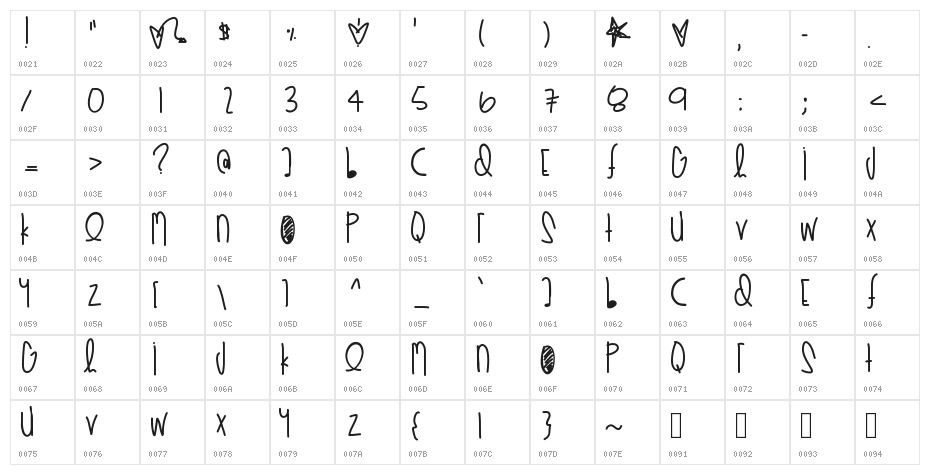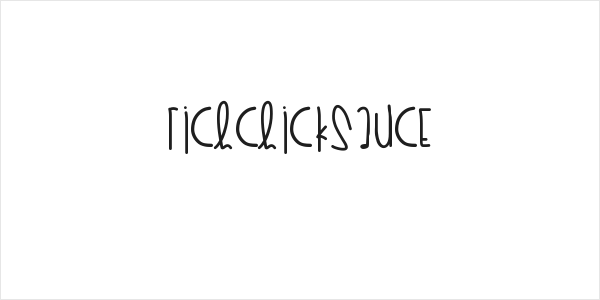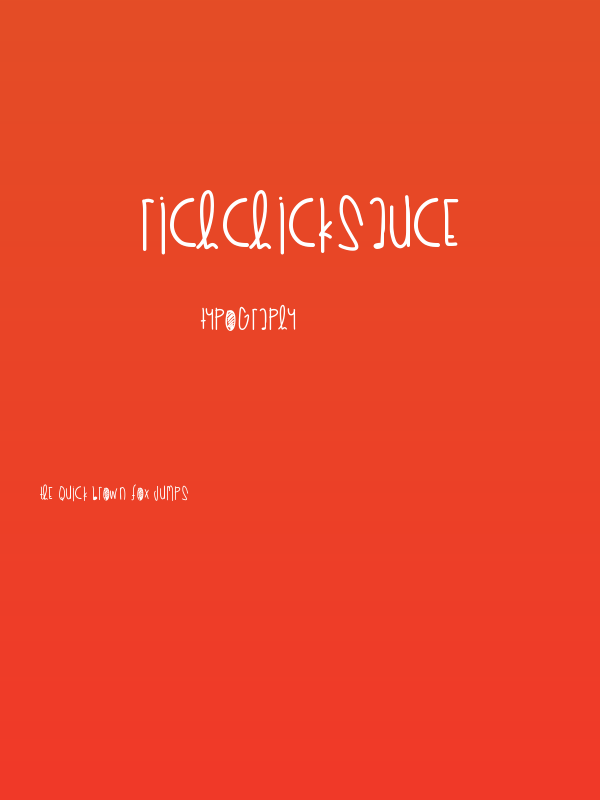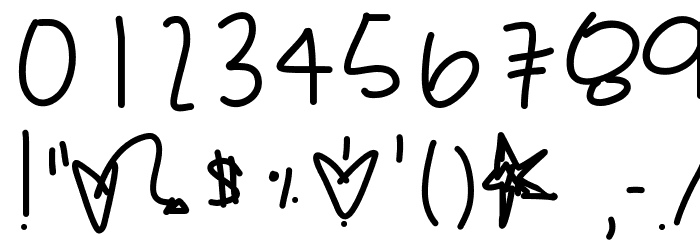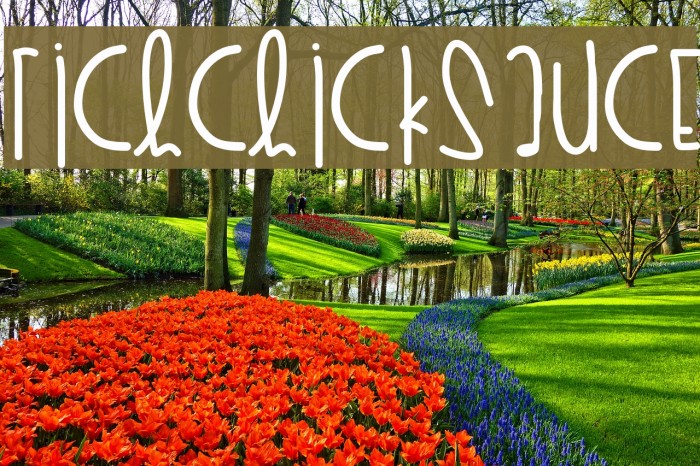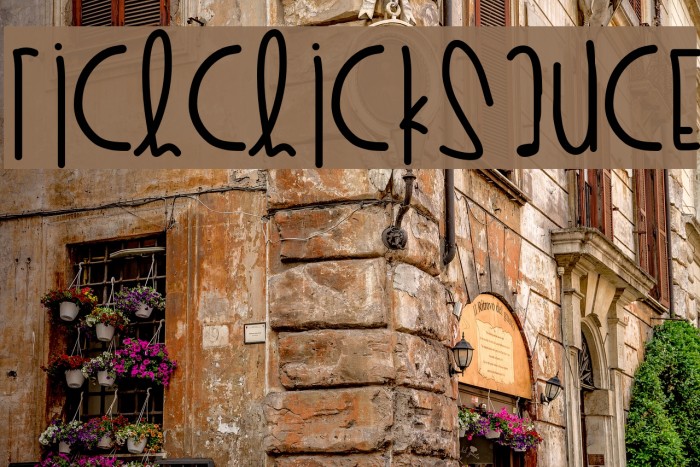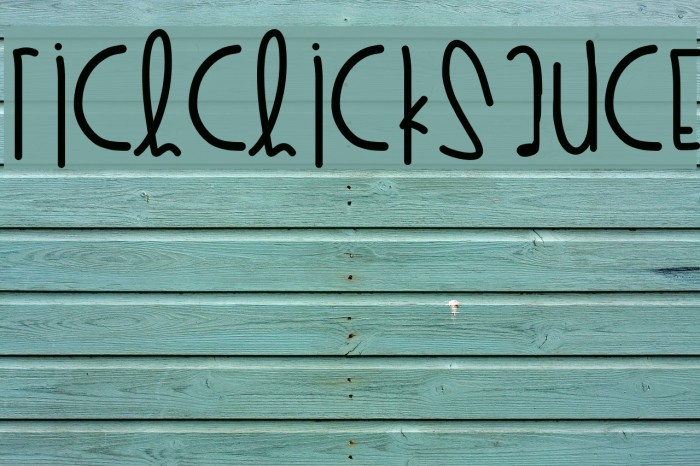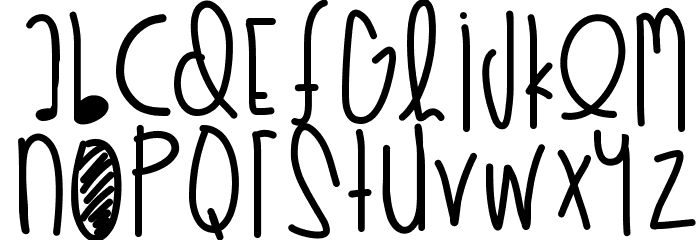
RichChickSauce Font
RichChickSauce Description
This playful and quirky font features a handwritten style with tall, narrow characters that exhibit a casual and informal appearance. The letters are slightly irregular, adding to the charm and uniqueness of the design. The uppercase and lowercase letters maintain a consistent height, creating a cohesive look. The numbers are similarly styled, with a whimsical touch that complements the overall aesthetic. Special characters are creatively designed, incorporating playful elements like stars and hearts. This font's distinctive personality makes it ideal for projects that require a fun and approachable feel.